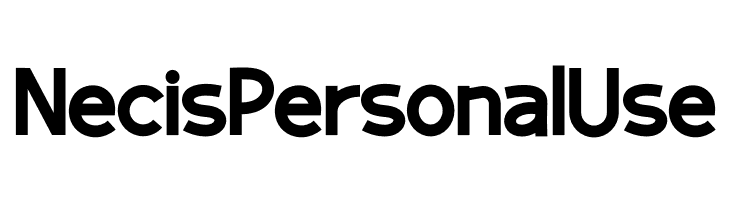
( Johan Winge - home.student.uu.se/jowi4905/ )
A decorative script inspired by Tolkien's Elvish writing, featuring elegant, flowing characters.
( Joey Gee )
A casual, handwritten font with a playful and informal style.
( Joberto )
A playful, rounded font with a casual, hand-drawn style.
( Joberto )
A bold, italicized font with a playful and dynamic style.
( Joberto )
A playful, italic font with bold, rounded characters and a dynamic style.
( JoannaVu - ioannaladopoulou.com )
A futuristic, angular font with sharp edges and geometric forms.
( JoannaVu - ioannaladopoulou.com )
A whimsical, gothic-style font with playful serifs and a hand-drawn appearance.
( JoannaVu - ioannaladopoulou.com )
A sophisticated serif font with sharp serifs and elegant curves.
( JoannaVu - ioannaladopoulou.com )
A bold, angular font with a medieval and fantasy-inspired design.
( JoannaVu - ioannaladopoulou.com )
A bold, gothic Blackletter font with dramatic, angular lines and ornate flourishes.
( JoannaVu - ioannaladopoulou.com )
A bold, geometric font with sharp angles and a modern style.
( JoannaVu - ioannaladopoulou.com )
A bold, angular Gothic-style font with sharp serifs and a medieval aesthetic.
( JoannaVu - ioannaladopoulou.com )
A bold, gothic-style font with sharp edges and a distressed texture.
( JoannaVu - ioannaladopoulou.com )
A dynamic, angular font with a bold, italicized style, perfect for conveying speed and energy.
( JoannaVu - ioannaladopoulou.com )
A whimsical, spooky font with playful swirls and bold, animated characters.
( JoannaVu - ioannaladopoulou.com )
A decorative font with integrated arrow motifs for a dynamic and adventurous look.
( JoannaVu - ioannaladopoulou.com )
A bold, dynamic font with sharp serifs and high contrast, perfect for dramatic designs.
( JoannaVu - ioannaladopoulou.com )
A decorative, modern blackletter-inspired font with elegant flourishes and high contrast.
( Jeni Pleskow - rois.org/ )
A playful, hand-drawn font with wavy lines and a whimsical style.
( Jeni Pleskow - rois.org/ )
A bold, stencil-inspired font with industrial cutouts and strong, angular characters.
( Jeni Pleskow - rois.org/ )
A Gothic-style font with sharp, angular lines and ornate detailing, ideal for dramatic and vintage designs.
( Jeni Pleskow - rois.org/ )
A jagged, abstract font with a fragmented, artistic style.
( Jeni Pleskow - rois.org/ )
A dynamic and expressive handwritten font with fluid strokes.
( Jeni Pleskow - rois.org/ )
An ornate, decorative font with intricate, stained glass-like designs.
( Jeni Pleskow - rois.org/ )
A dynamic, slanted font with angular, handwritten characteristics.
( Jeni Pleskow - rois.org/ )
A futuristic, abstract font with sharp angles and minimalistic strokes.
( Jecko Development - www.jeckodevelopment.com )
A whimsical, hand-drawn font with uneven, wavy lines and a playful, artistic style.
( Jecko Development - www.jeckodevelopment.com )
An ornate and decorative font with intricate, flowing letterforms.
( Jecko Development - www.jeckodevelopment.com )
A geometric, textured font with a pinwheel pattern, offering a modern and decorative style.
( Jean Douteau - perso.orange.fr/jm.douteau/ )
A dotted, cursive-style font ideal for educational and decorative purposes.
( Jean Douteau - perso.orange.fr/jm.douteau/ )
A dotted, handwriting practice font ideal for educational use.
( Jaz - www.geocities.com/athens/pantheon/5812/carrollfont/ )
A playful handwritten font with a cursive style and consistent stroke width.
( Jaz - www.geocities.com/athens/pantheon/5812/carrollfont/ )
A whimsical dingbat font with imaginative symbols inspired by Lewis Carroll.
( JasonFont )
A handwritten style font with an organic and casual appearance.
( Jariya - artd2304-jariya.blogspot.com/ )
A playful, italic font with a hand-drawn, dynamic style.